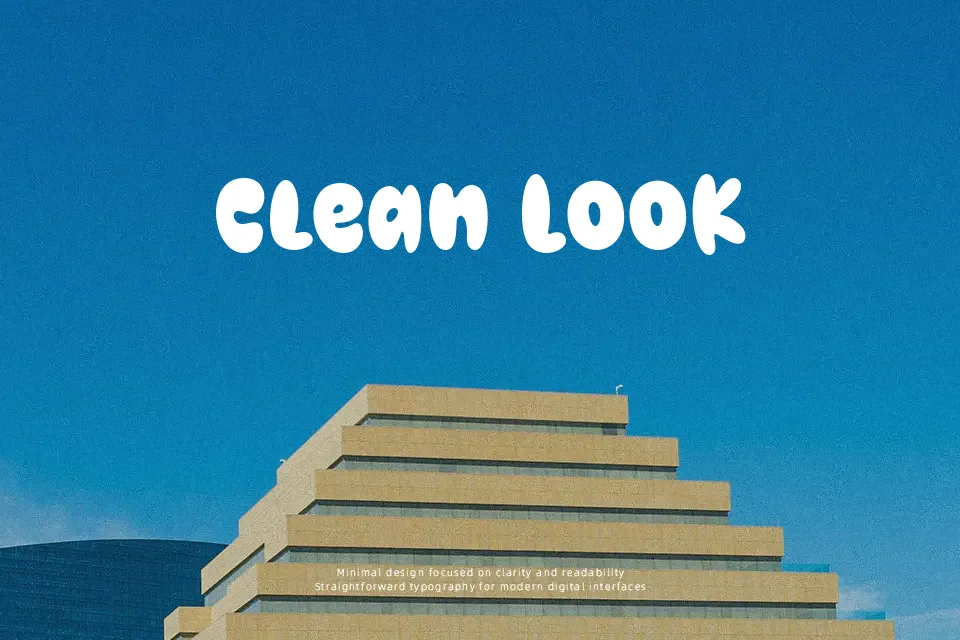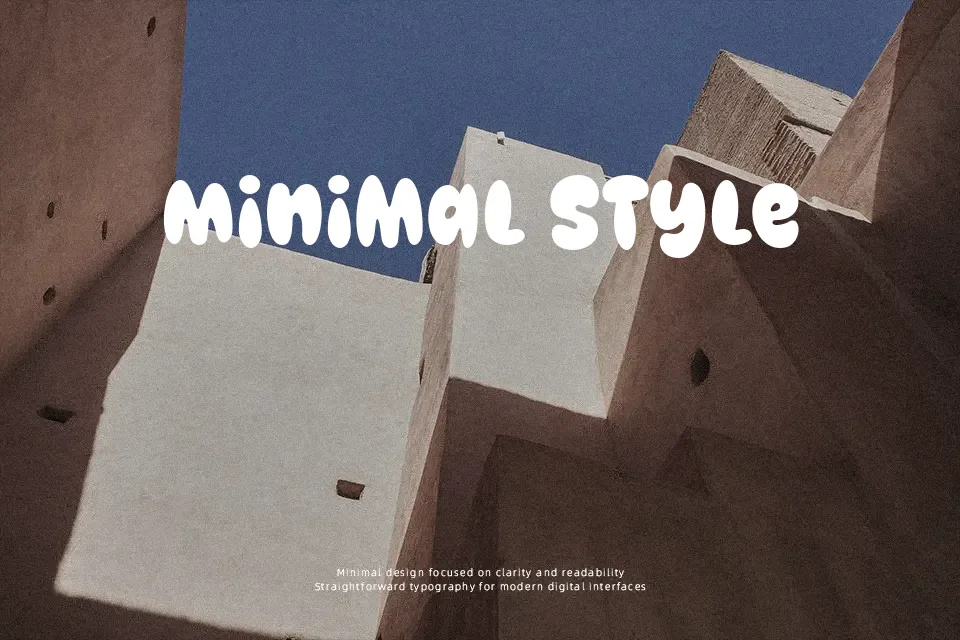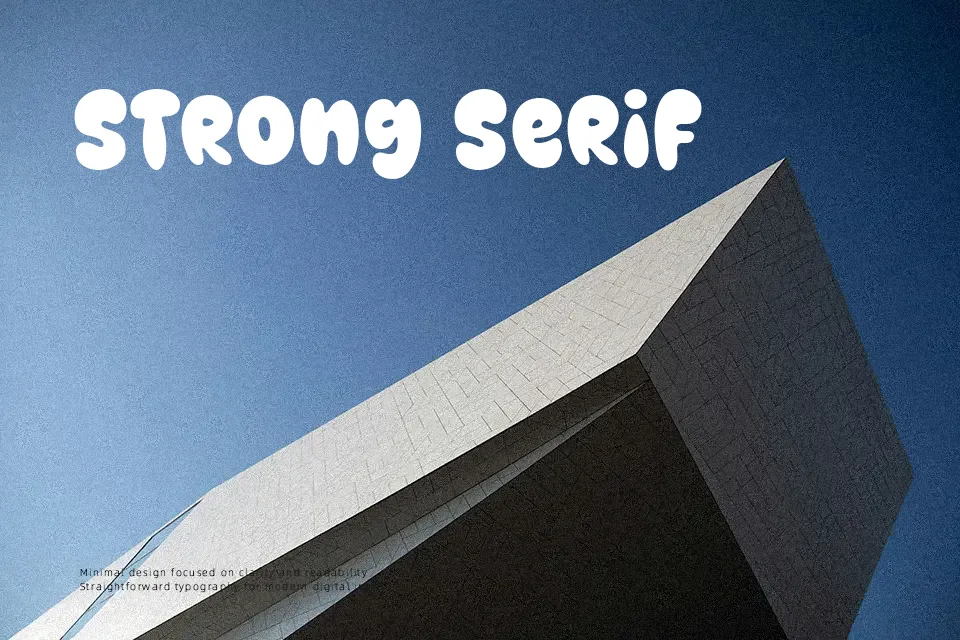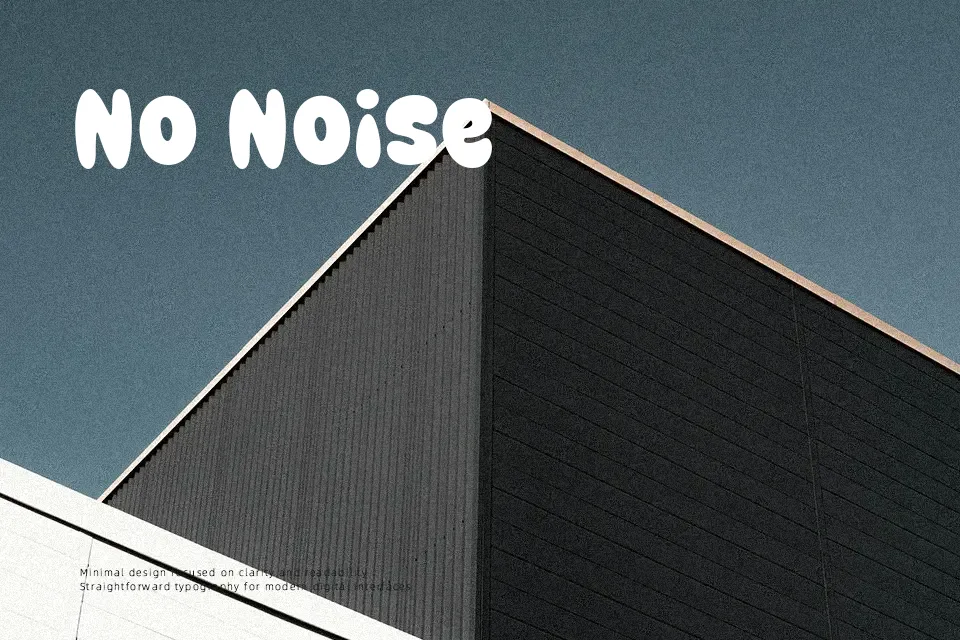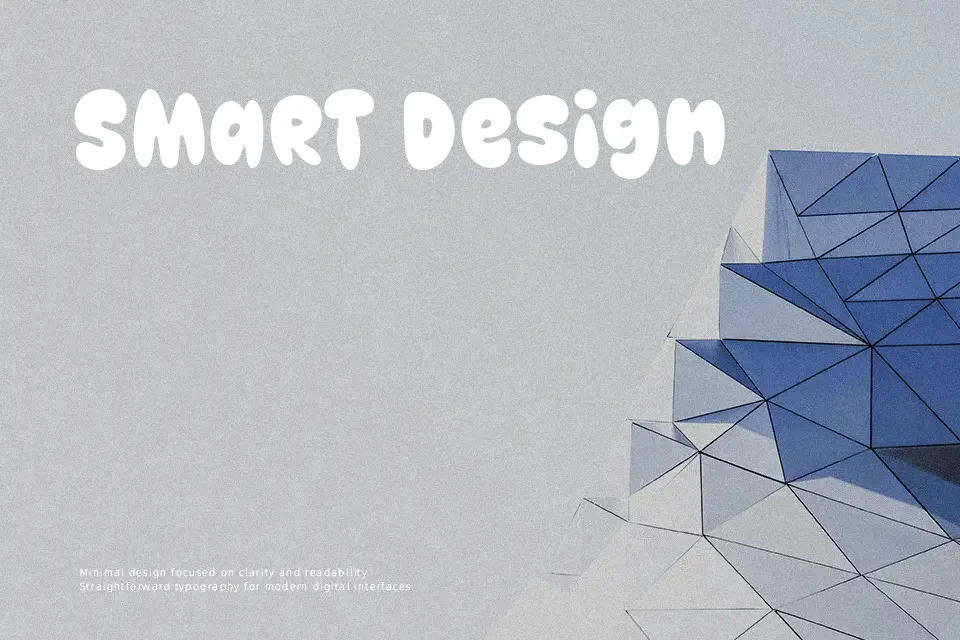
Super Folks Font
Super Folks Font uses rounded, cartoon-like letterforms with an informal display presence suited to short, attention-focused text. The visible design favors expressive shapes over a restrained text rhythm, giving headlines and individual words a friendly, playful character. Its proportions and decorative personality work well when the lettering has room to stand out, such as on packaging, posters, or kids-oriented graphics. The typeface is most effective at larger sizes, where its details remain easy to recognize. In long passages, however, the lively forms can make sustained reading feel less comfortable than a simpler text face.
Best For: children’s book covers,playful product packaging,party invitation headlines,poster titles
Perfect for headline, kids, and logo, with a creative and cartoon style.